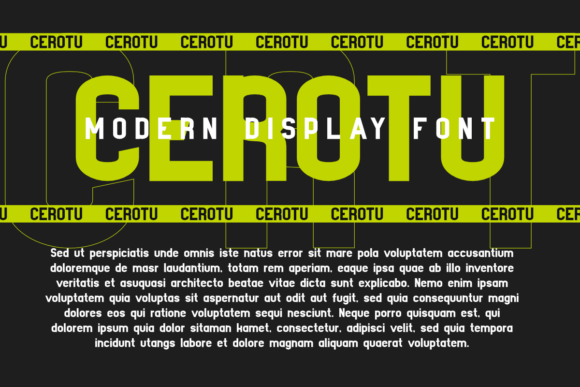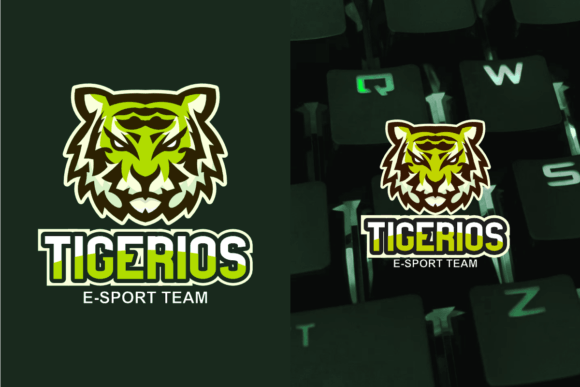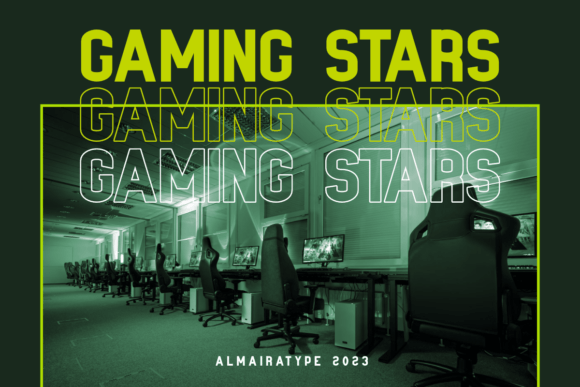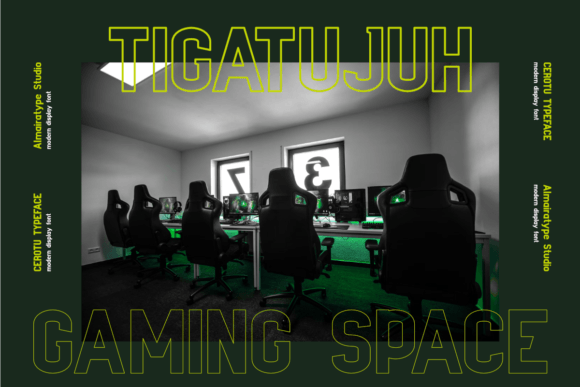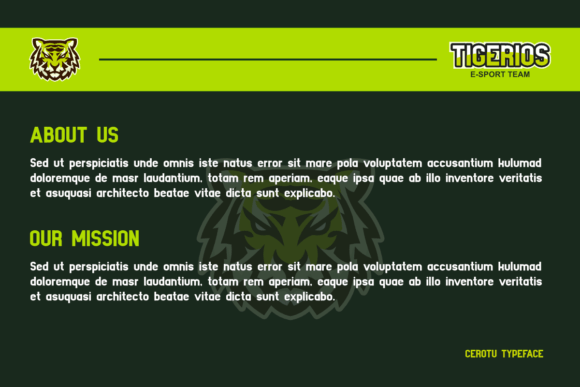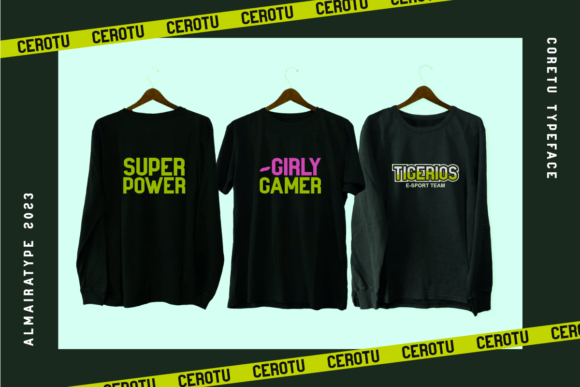
Cerotu Font: Elevate Your Designs with a Modern Sans Serif Display Font
Are you a designer or crafter looking for a font that can add a touch of modernity and sportiness to your projects? Look no further than Cerotu Font! This modern sans serif display font is perfect for a wide range of creative applications, from headlines and branding to print, t-shirts, and more.
What is Cerotu Font?
Cerotu Font is a modern sans serif display font designed to make a statement. Its sporty and modern style makes it perfect for designs that require a bold and eye-catching look. The font’s clean lines and sleek curves give it a fresh and contemporary feel that’s sure to elevate your designs.
Key Features of Cerotu Font
- Modern Sans Serif Design: Cerotu Font features a modern sans serif design that’s perfect for creating bold and eye-catching headlines, titles, and captions.
- Sporty and Modern Style: The font’s sporty and modern style makes it perfect for designs that require a fresh and contemporary look.
- Highly Versatile: Cerotu Font is highly versatile and can be used for a wide range of creative applications, from crafts and print to t-shirts and apparel.
- Easy to Read: Despite its bold and modern design, Cerotu Font is easy to read, making it perfect for use in headlines, titles, and captions.
Use Cases for Cerotu Font
Cerotu Font is perfect for a wide range of creative applications, including:
- Crafts: Use Cerotu Font to add a modern touch to your craft projects, such as scrapbooking, card making, and DIY decor.
- Headlines and Branding: Cerotu Font is perfect for creating bold and eye-catching headlines and titles for your brand or business.
- Print: Use Cerotu Font to create stunning print materials, such as brochures, flyers, and posters.
- T-Shirts and Apparel: Cerotu Font is perfect for creating custom t-shirts, hoodies, and other apparel.
- Cricut and Silhouettes: Cerotu Font can be used with cutting machines like Cricut and Silhouette to create custom vinyl decals, iron-on designs, and more.
Why Choose Cerotu Font?
So why choose Cerotu Font for your next design project? Here are just a few reasons:
- Unique and Modern Design: Cerotu Font features a unique and modern design that’s sure to make your designs stand out.
- Highly Versatile: Cerotu Font can be used for a wide range of creative applications, making it a great addition to any designer’s toolkit.
In conclusion, Cerotu Font is a modern sans serif display font that’s perfect for designers and crafters looking to add a touch of modernity and sportiness to their projects. With its clean lines, sleek curves, and highly versatile design, Cerotu Font is sure to elevate your designs and make them stand out. So why wait? Download Cerotu Font today and start creating stunning designs that will leave a lasting impression!